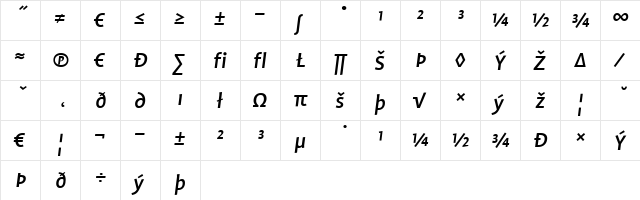
Profile Medium Italic Font Preview
Profile Medium Italic
Profile Medium Italic Font Details
| Style | Medium Italic |
Design Context for Profile Typeface
Profile takes a measured approach to typography — its balanced proportions and neutral character make it a reliable workhorse for both digital and print work. The slanted form adds forward momentum and visual energy.
Pro Tip: Use Profile for emphasis, pull quotes, and subheadings where its slanted energy can add rhythm to the layout.